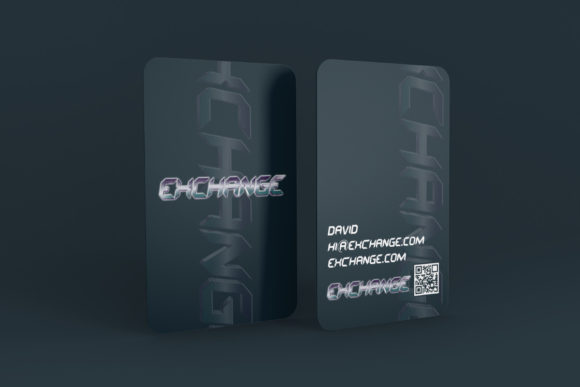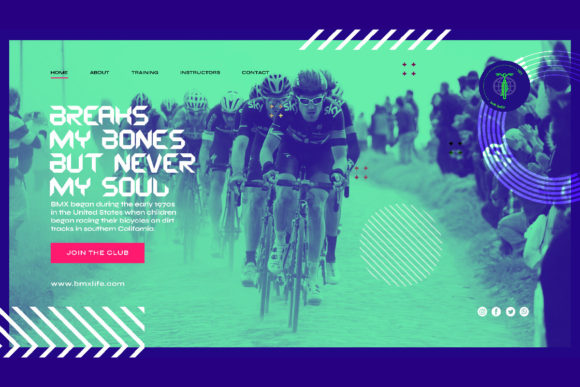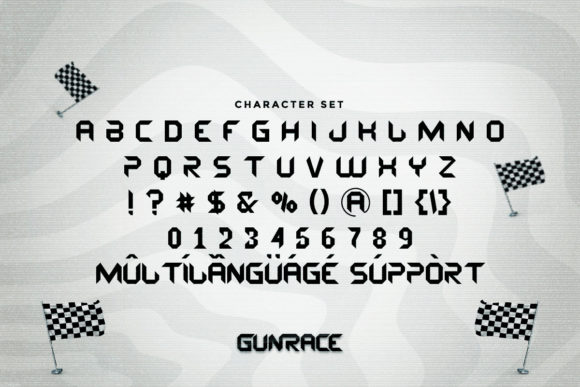
Introduction to Gunrace Font
Gunrace is a cool, bold and robotic styled display font.
It will elevate a wide range of crafting ideas, from cards, to branding, labels and much more This font is PUA encoded which means you can access all of the amazing glyphs and ligatures with ease.
Gunrace Font offers exceptional quality and versatility, making it a valuable addition to your design toolkit. Whether you’re creating for personal projects or commercial use, Gunrace Font delivers professional results.